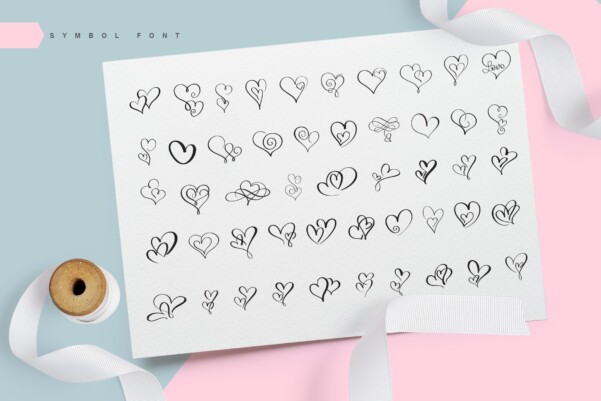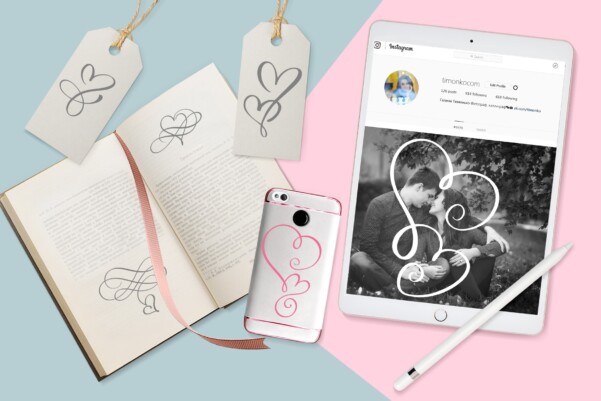
Lovingly Font
Lovingly Font is a charming and romantic ornamental font set; these dingbats are perfect for anchoring your designs in a holiday mood, with a light and airy dreaminess that can only be found in Lovingly.